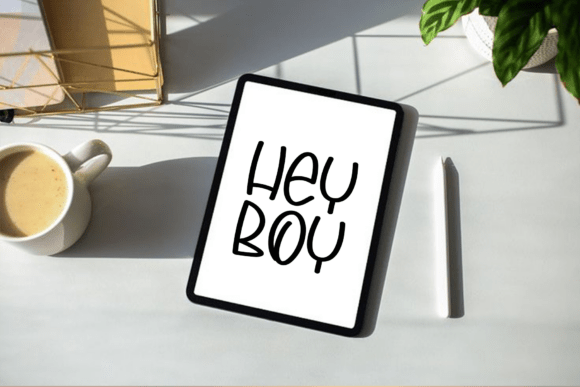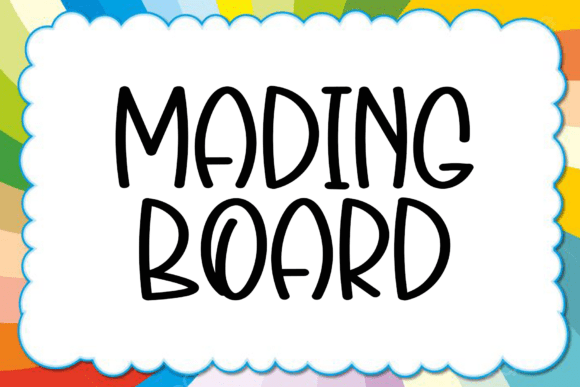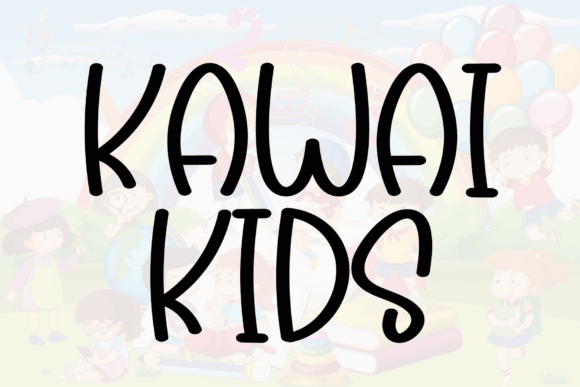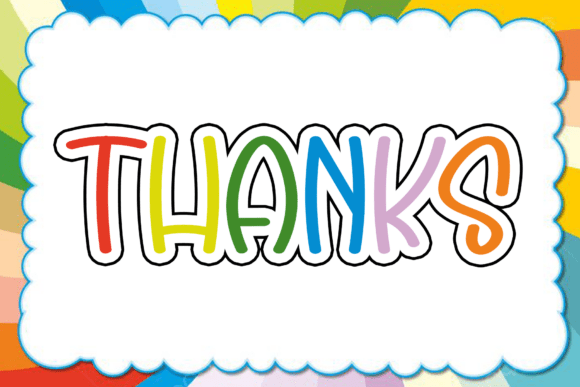
The Perfect Script: Unlocking the Charm of the Boboho Font
Have you ever been stuck on a design project, searching for the perfect font to convey a sense of warmth and personality? I know I have. It’s that moment when you want to capture the essence of a handwritten note, but still want your design to feel modern and approachable. That’s where the Boboho Font comes in – a casual, handwritten font that radiates a sense of charm and character.
With its smooth strokes, natural curves, and easy-flowing letterforms, the Boboho Font is perfect for adding a personal touch to your designs. Whether you’re working on a quote, invitation, or social media post, this font delivers both readability and charm. Its effortless style and versatile character make it an invaluable tool for designers looking to add a human touch to their work.
Boboho Font Key Features
- Font Family: Boboho is a sans-serif font family designed for digital use. It comes in multiple weights and styles, including Thin, Light, Regular, Medium, Bold, and Black.
- Unique Characteristics: Boboho features a clean and modern design, with a focus on readability and legibility. It has a subtle rounded edge and a well-balanced x-height, making it easy to read on digital devices.
- Language Support: Boboho supports a wide range of languages, including Latin, Greek, Cyrillic, and many others, making it a versatile font for global applications.
Designer Review: Boboho Font
I’ve had the chance to work with the Boboho font, and I must say it’s a mixed bag. On one hand, it’s got some great qualities that make it a solid choice for certain projects. ✨
- Legibility**: Boboho is incredibly easy to read, even at smaller font sizes. It’s perfect for body text and is sure to please readers.
- Expressiveness**: The font has a lot of character, with unique letterforms that add a touch of personality to your designs. It’s great for use in titles and headings.
However, there are some limitations that might make you think twice. ⚠️
- Compatibility**: I’ve found that Boboho doesn’t play nice with some older browsers or operating systems. This can be a problem if you’re working with a client who’s stuck in the past.
- Lack of italics**: There’s no italic version of the font, which can be a bummer if you’re looking for a font with a lot of flexibility.
Overall, I’d say Boboho is a solid choice for designers who need a clean, legible font with a bit of personality. However, it’s not perfect, and you should be aware of its limitations before making a decision.
Tips for Getting the Most Out of Boboho Font
Boboho Font is a versatile font that can be used in a variety of projects, from logos to packaging designs. To get the most out of it, try the following:
- Pair Boboho Font with other fonts to create a unique and eye-catching combination.
- Use Boboho Font in bold and italic styles to add emphasis and create hierarchy.
Boboho Font is commonly used in:
- Logos and branding materials.
- Packaging designs and labels.
Alternatives to Boboho Font for Designers
Playfair Display is a luxurious, high-end serif font ideal for creating elegant and sophisticated designs. It’s perfect for use in titles, headings, and other prominent text elements. Compared to Boboho Font, Playfair Display has a more refined and classic look, making it suitable for high-end branding and luxury goods.
Great Vibes is a modern, elegant script font that’s great for creating a friendly and approachable tone. It’s perfect for use in titles, headings, and body text where a more relaxed and casual feel is desired. Compared to Boboho Font, Great Vibes has a more fluid and organic feel, making it suitable for creative and artistic designs.